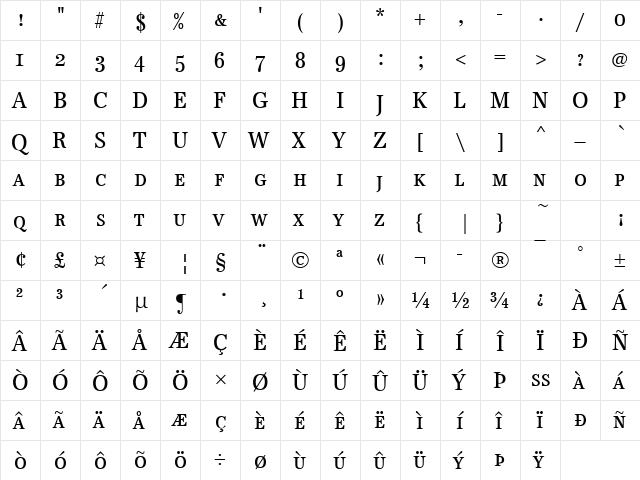
Becker Antiqua Caps Cond Regular
Design Context for Becker Antiqua Caps Cond Typeface
Becker Antiqua Caps Cond offers clean, dependable letterforms without strong stylistic allegiance, making it a practical choice for designers who need flexibility. The condensed width makes it efficient for tight spaces without sacrificing legibility.